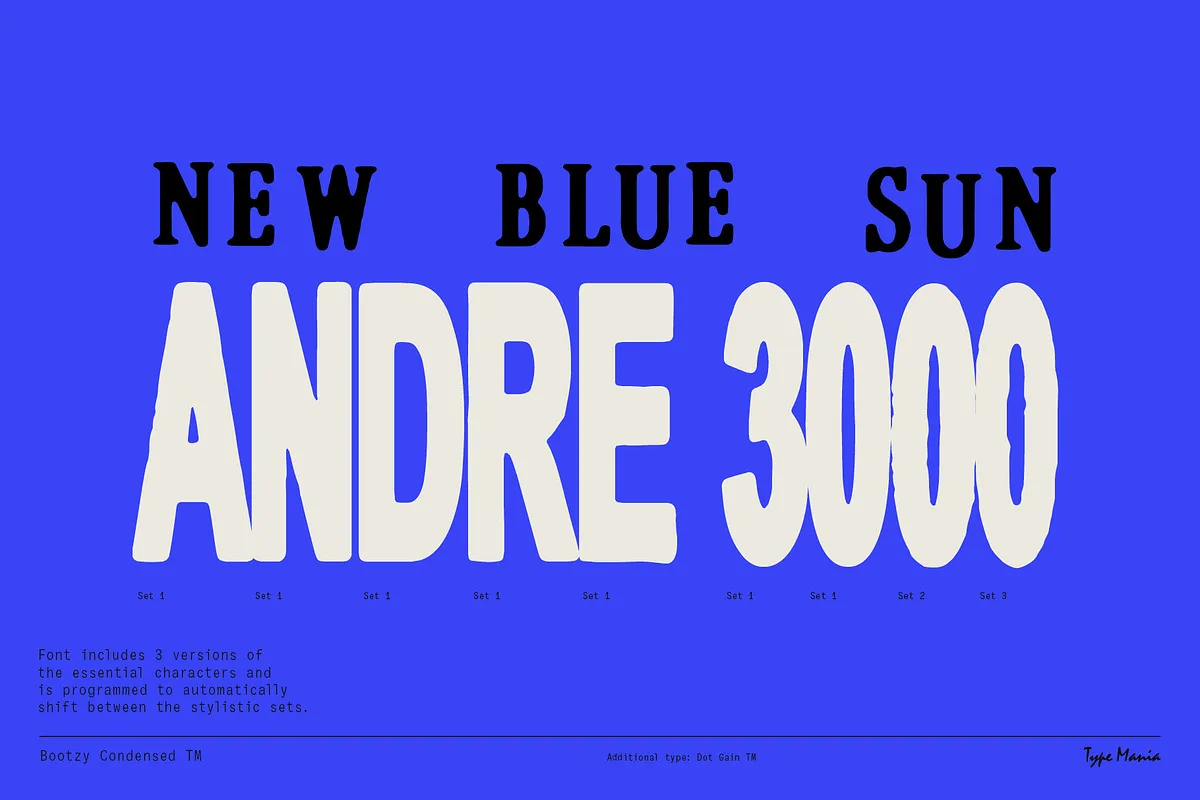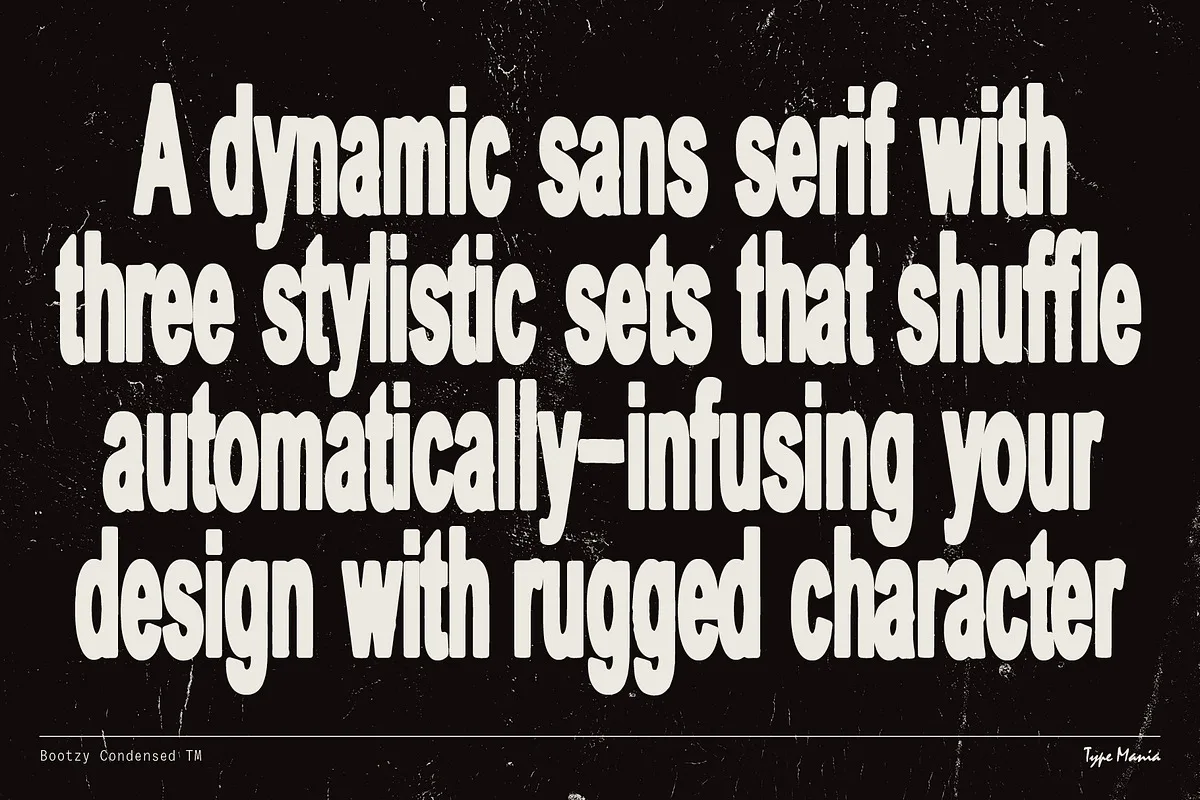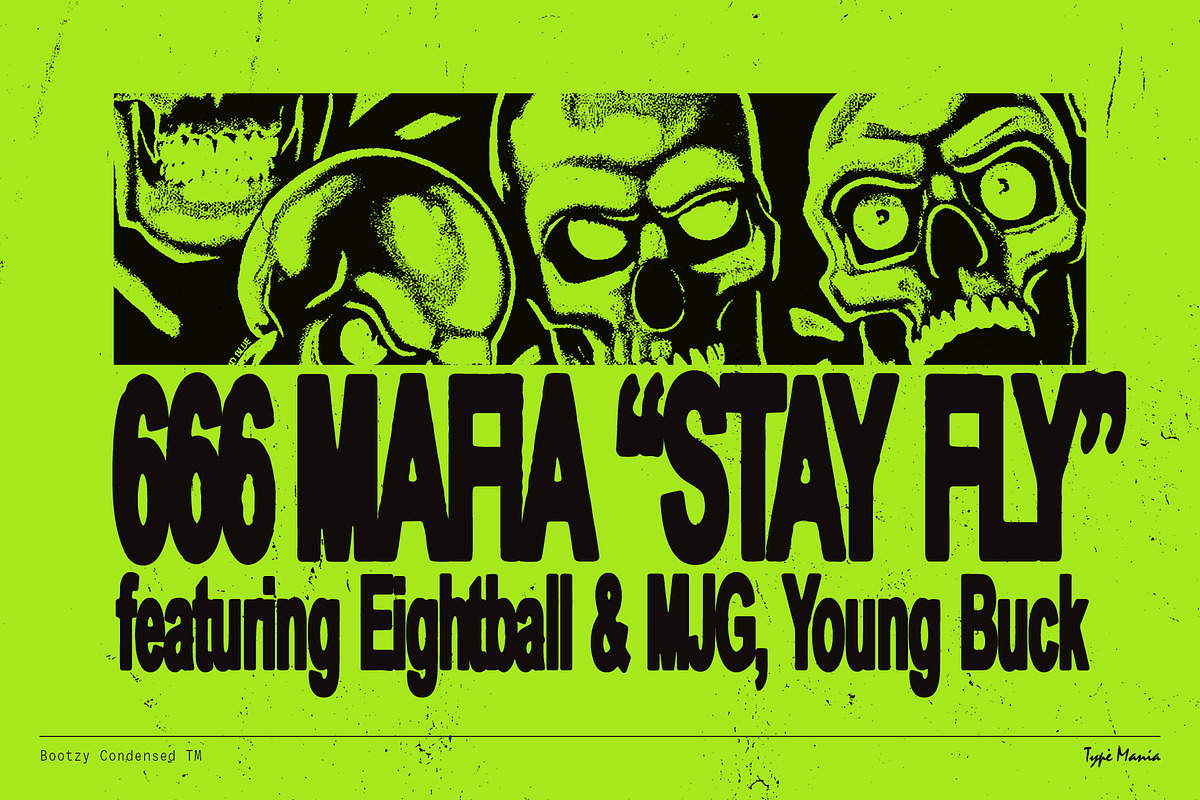
Introducing Bootzy Condensed TM, a rugged display sans serif born from and for the creative underground. Inspired by the DIY ethos of bootlegging, this font is perfect for flyers, zines, and rebellious expressions all over.
Bootzy Condensed TM – Rugged Font